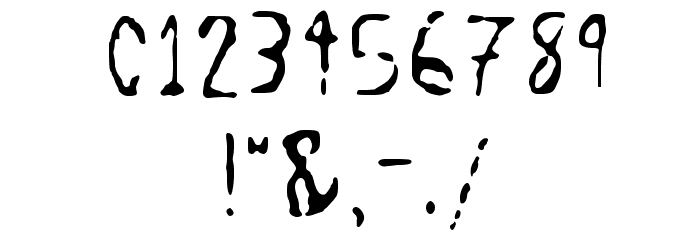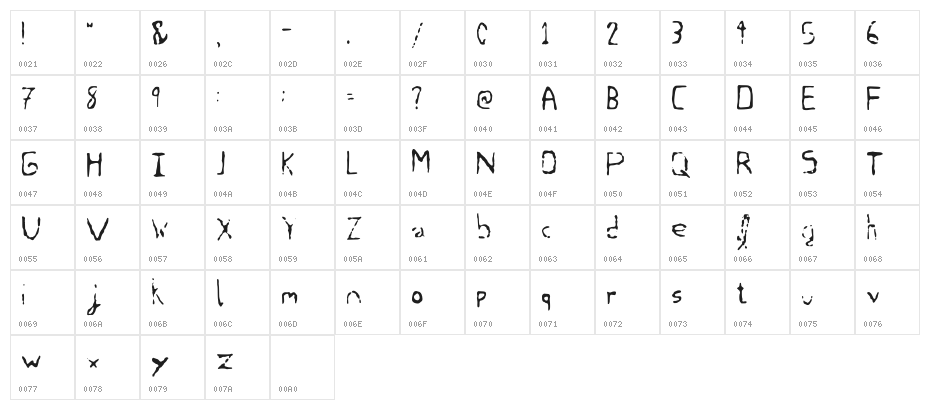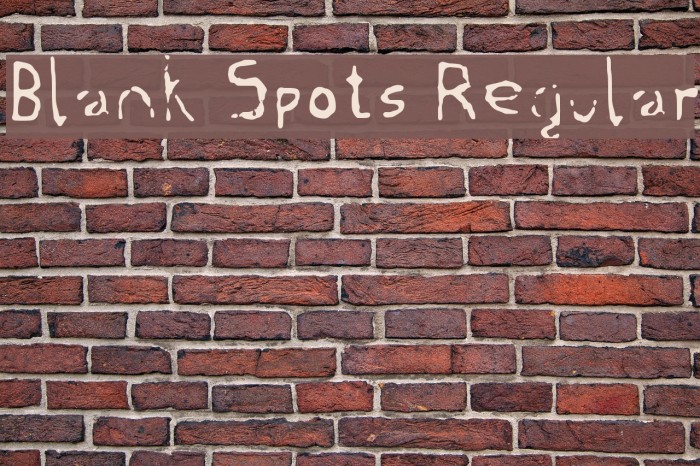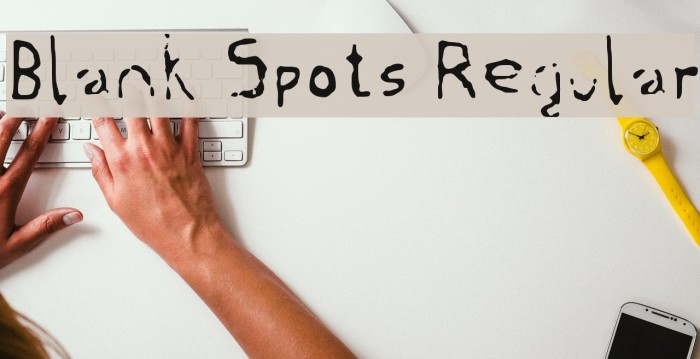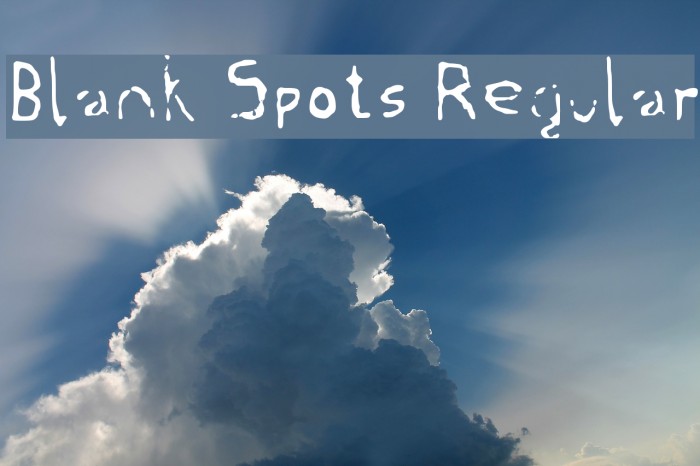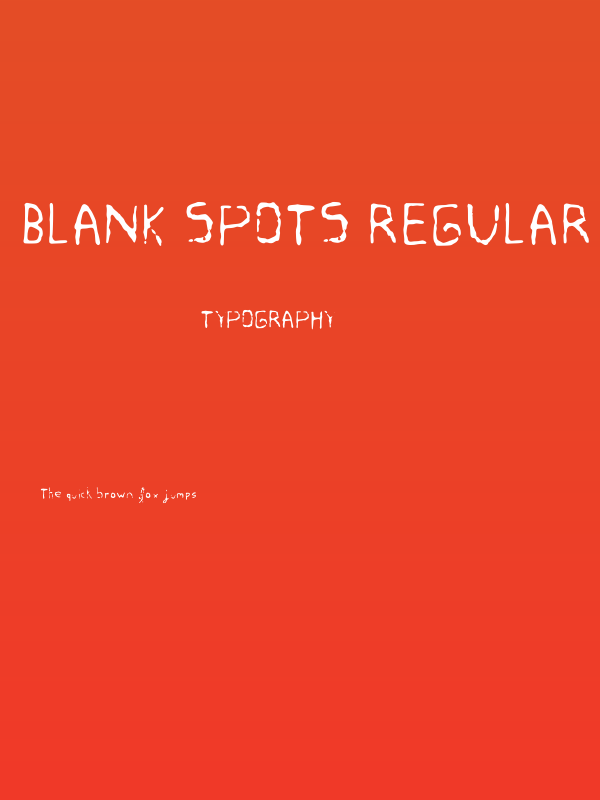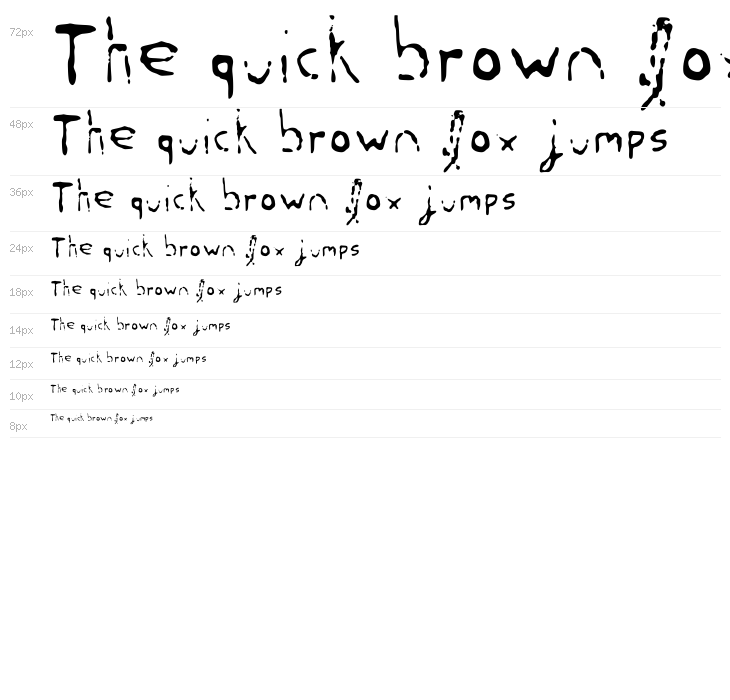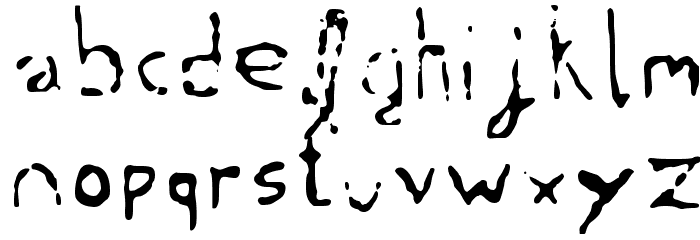
Blank Spots Regular Font
Blank Spots Regular Description
This font exhibits a unique, distressed appearance, characterized by irregular edges and a hand-drawn feel. The letters appear as if they have been painted with a brush, giving them a raw and organic look. The uppercase and lowercase letters maintain a consistent style, with varying thickness that adds to the font's dynamic nature. Numbers and special characters follow the same aesthetic, ensuring a cohesive visual experience. The font's imperfect lines and spots create a sense of movement and energy, making it stand out in any design project.
| Proposed Projects | Ideal for artistic projects, album covers, posters, and any design requiring a raw, expressive touch. |